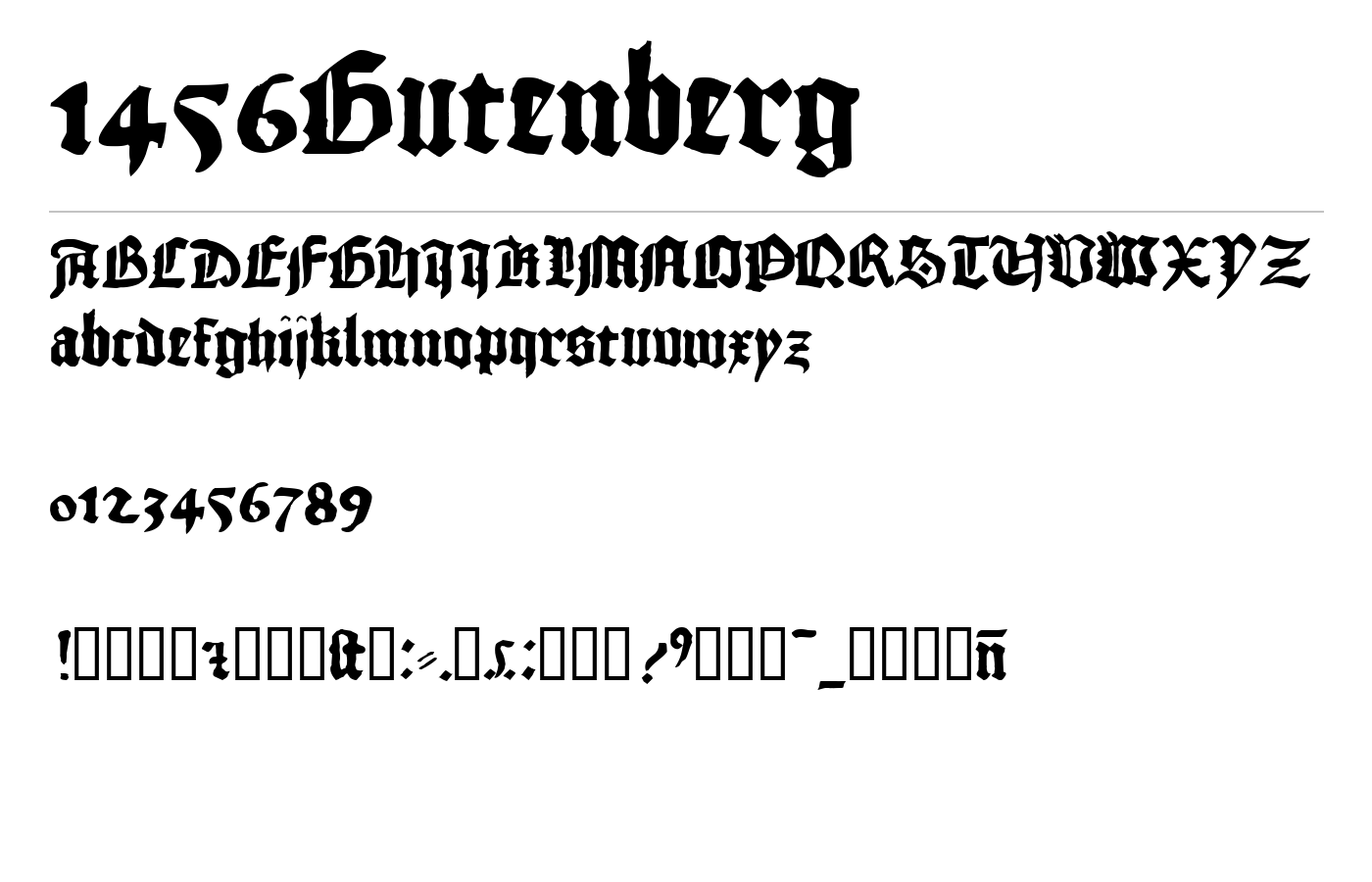
1456Gutenberg is a bold, blackletter-style font with dense, angular strokes and a strong historical presence. Its high contrast between thick and thin lines, combined with intricate, sharp details, creates a Gothic and vintage feel ideal for medieval or classic-themed designs. This font works best in headlines, logos, or editorial projects where a dramatic, old-world charm is desired.
1456Gutenberg Font